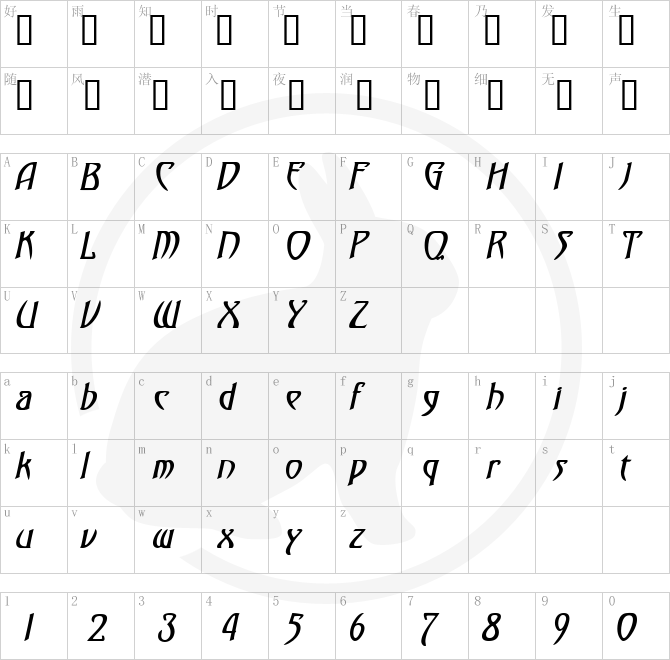
- Font Name:Saga-Condensed
- Full Name:Saga-Condensed Bold Italic
Saga-Condensed-Bold-Italic.ttf is a very beautiful artistic font, Saga-Condensed-Bold-Italic.ttf is widely used in the design and printing of various books and pictures,Saga-Condensed-Bold-Italic.ttf has a strong visual impact,Saga-Condensed-Bold-Italic.ttf is a commonly used font in newspapers, magazines and books, and is used in posters, e-commerce Poster design, store design, logo design, font design and other fields.Saga-Condensed-Bold-Italic.